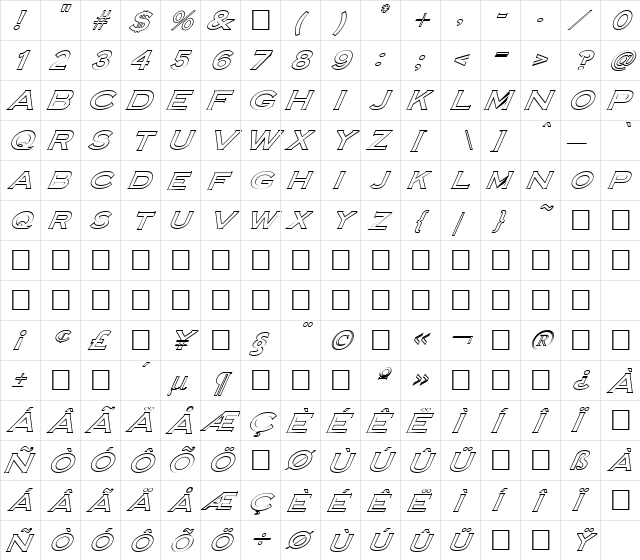
FZ ROMAN 14 HOLLOW ITALIC Light
Design Context for FZ ROMAN 14 HOLLOW ITALIC Typeface
FZ ROMAN 14 HOLLOW ITALIC is a composed and adaptable typeface that performs quietly and consistently across a wide range of design contexts. The dynamic lean of this cut emphasises speed and emphasis in any layout. Its slender proportions lend an understated elegance to any composition.
Pro Tip: Use FZ ROMAN 14 HOLLOW ITALIC for emphasis, pull quotes, and subheadings where its slanted energy can add rhythm to the layout.